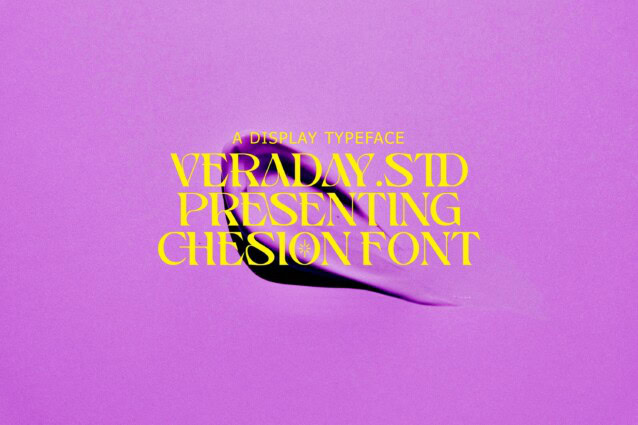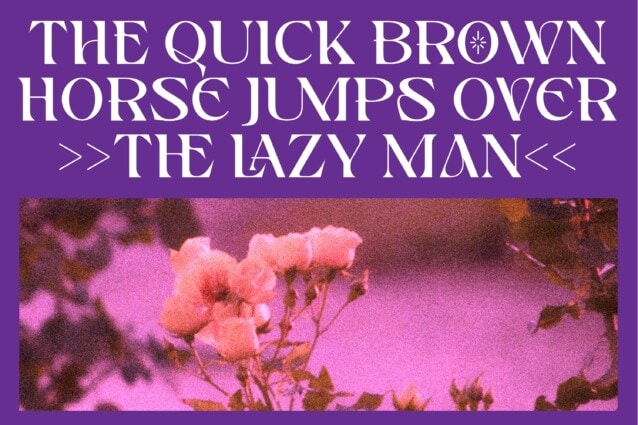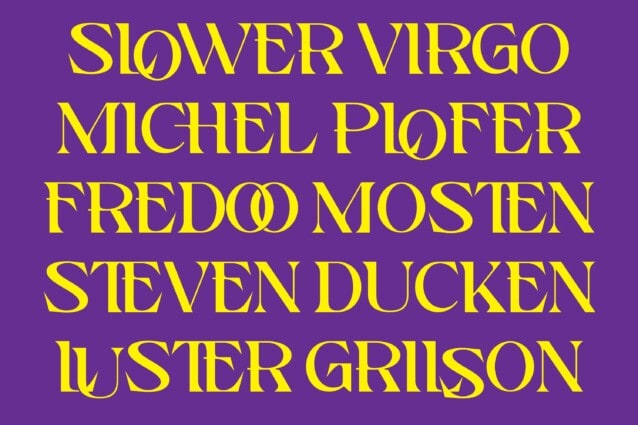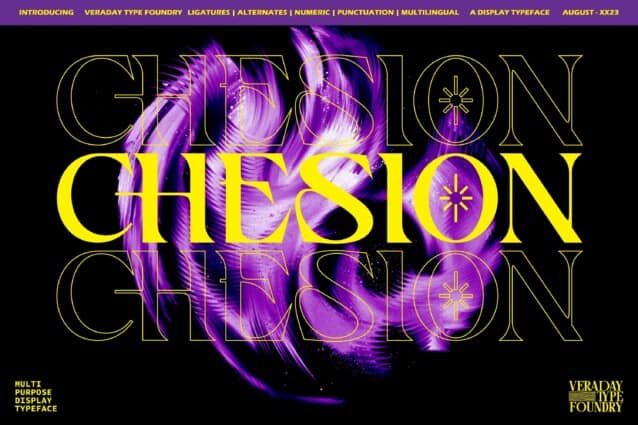
Chesion Font is a sophisticated serif display typeface manufactured by Dzulka Elfira. So beautiful on invitation like greeting cards, branding materials, business cards, quotes, posters, and more!
Chesion Display Serif is the part of a strong and modern Bold display. This typeface both impressive at display sizes and easily readable in text size, while the sharp shapes of the triangular serif and the distinctive letter shapes show their strength in logo design and impressive editorial use.